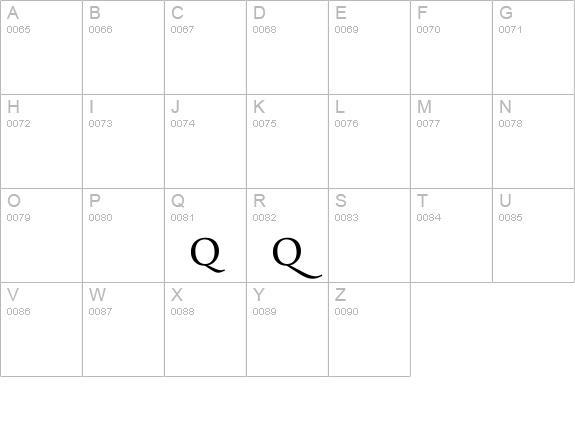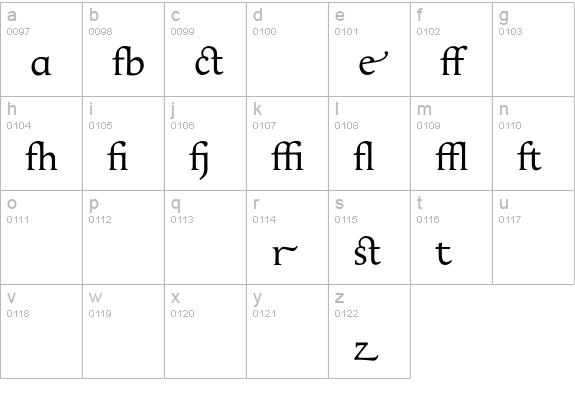
ApollineAlternate-Regular Font Details
ApollineAlternate-Regular is the standard, neutral variant in the ApollineAlternate typeface family \xE2\x80\x94 well suited to general body text, paragraphs, and standard typographic work.
ApollineAlternate-Regular font is a versatile and elegant typeface that exudes a sense of sophistication and modernity. With its clean lines and subtle curves, this font is perfect for a wide range of design projects, from branding and advertising to print materials and web design. What sets ApollineAlternate-Regular font apart is its unique blend of classic and contemporary design elements, making it a standout choice for any creative endeavor. Whether you're looking to create a sleek and professional look or add a touch of flair to your designs, this font has you covered. Best of all, ApollineAlternate-Regular font is free to download at FontsMarket.com, making it accessible to designers of all skill levels. Don't miss out on the opportunity to elevate your projects with this exceptional font - download ApollineAlternate-Regular today and see the difference it can make in your designs.